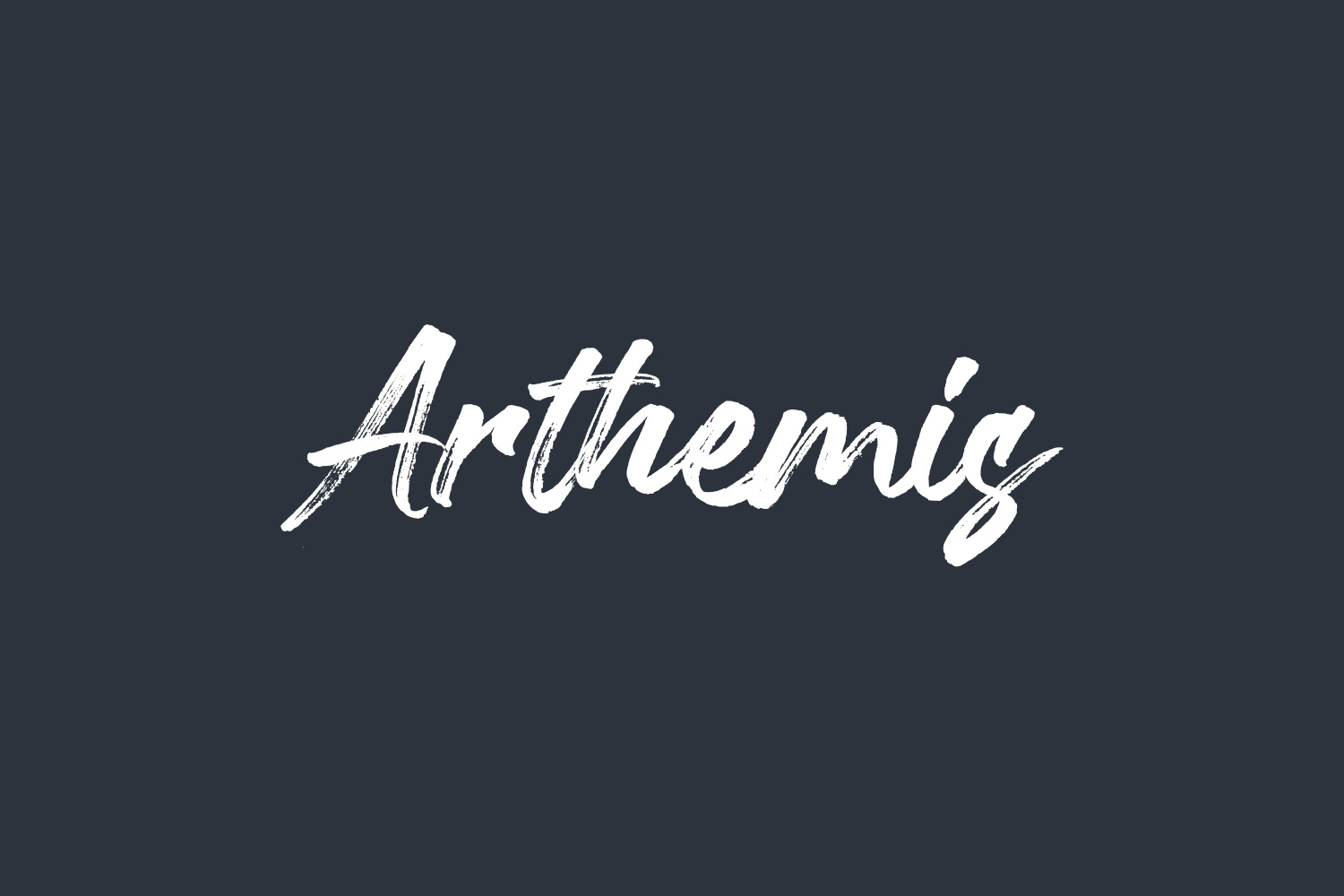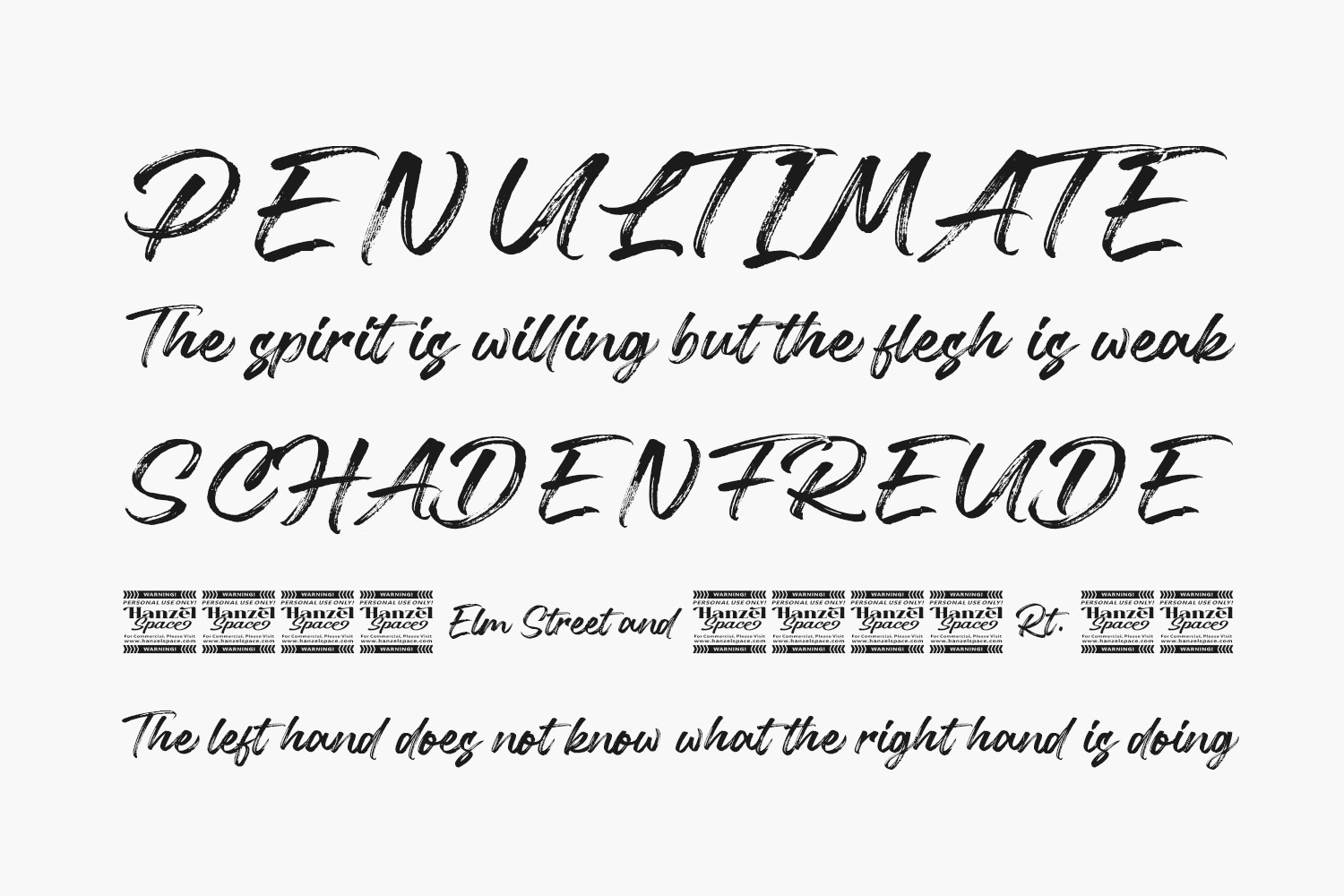
Arthemis Free Font is a chic and contemporary brush script font that adds a touch of sophistication to a wide range of design projects seeking a personalized flair. Its elegance shines on applications like wedding invitations, heartfelt thank you cards, charming greeting cards, memorable logos, and more. Arthemis Free Font is a demo and free for personal use only. Please purchase the full version for commercial use.
Designed by Hanzel Space